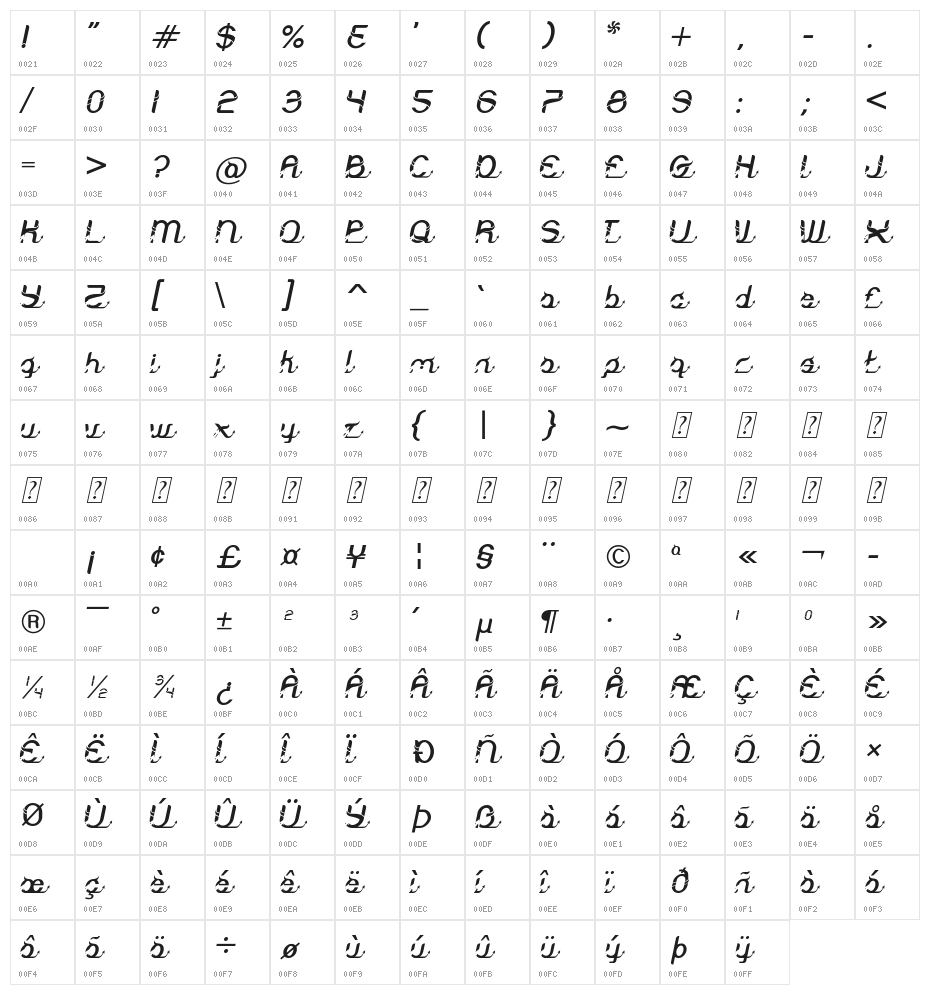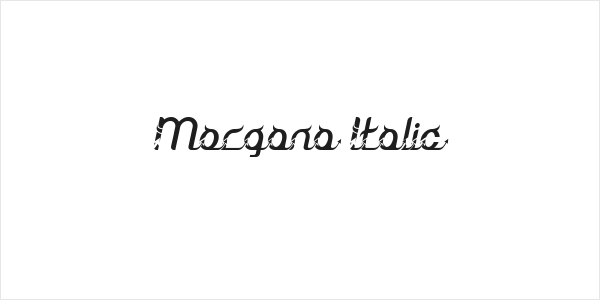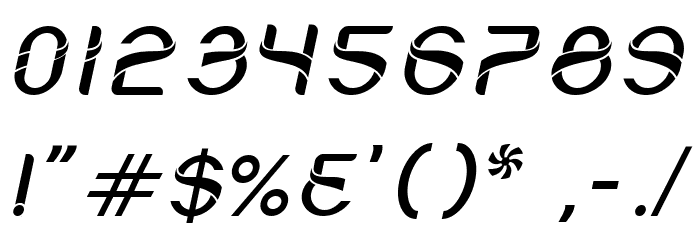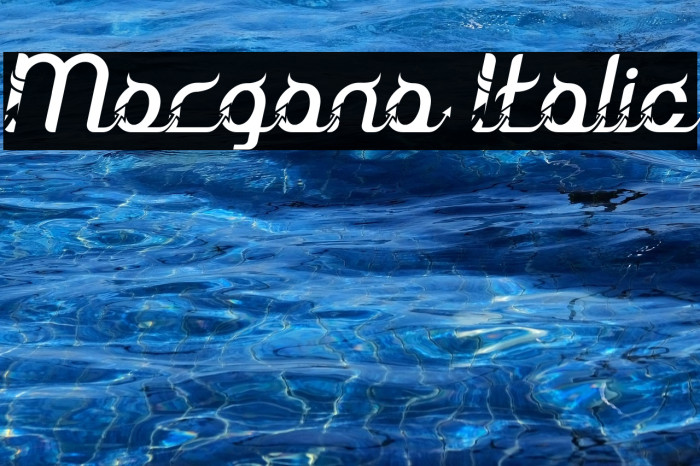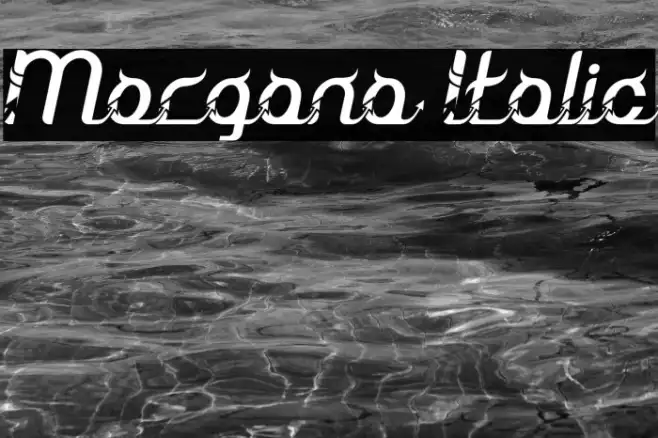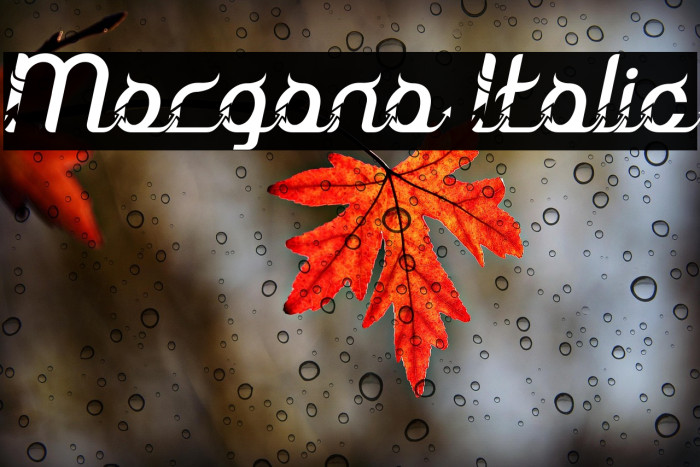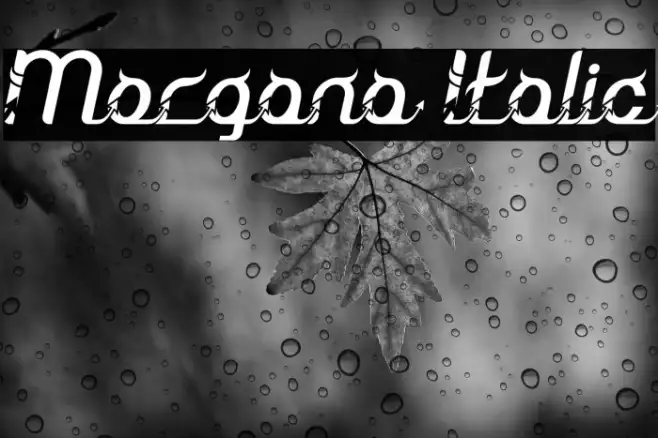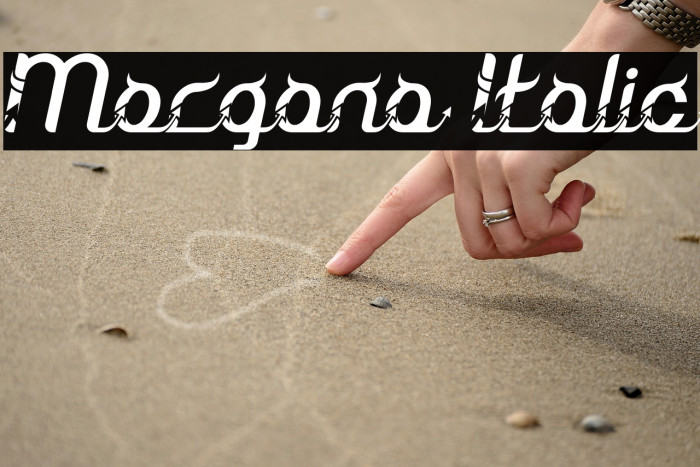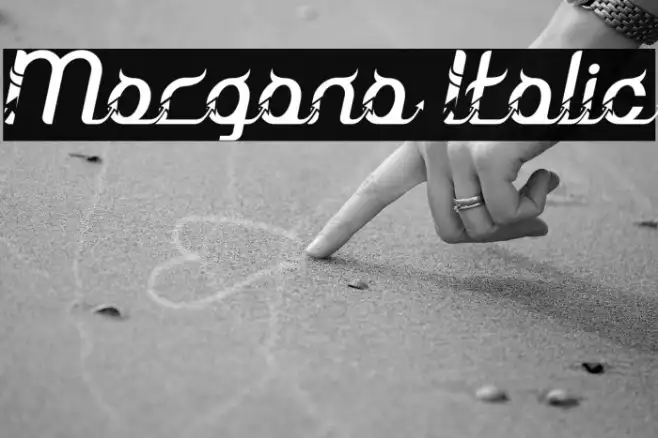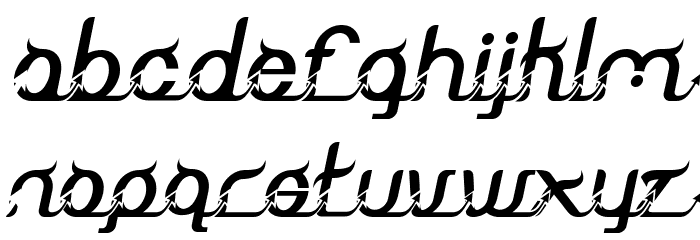
Morgana Italic Font
Morgana Italic Description
This font features a dynamic and flowing italic style, characterized by its elegant curves and smooth transitions between strokes. The letters are interconnected, giving it a sense of movement and fluidity. The uppercase letters maintain a consistent height, while the lowercase letters exhibit a slight slant, enhancing the italic effect. The numerals are designed to match the overall style, with curved lines and a harmonious appearance. Special characters are integrated seamlessly, maintaining the font's cohesive look. The overall design is sophisticated, making it suitable for projects that require a touch of elegance and creativity.